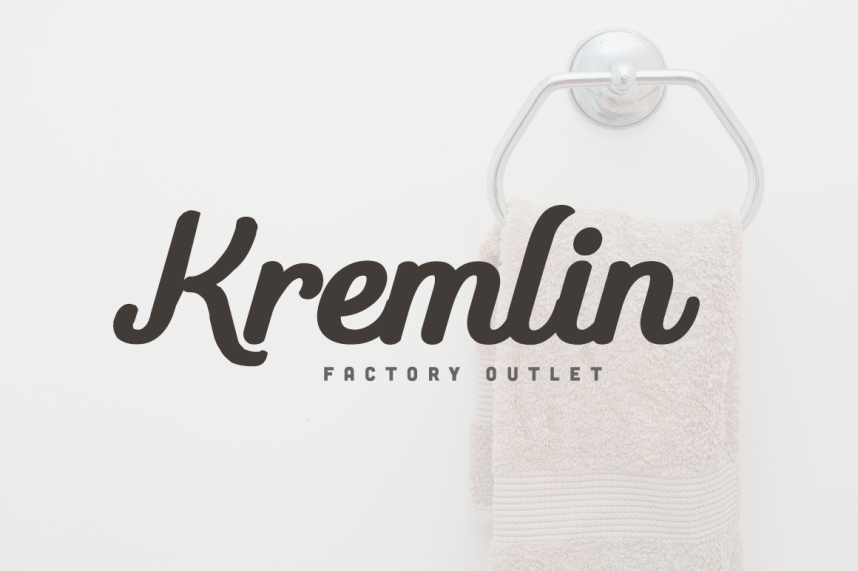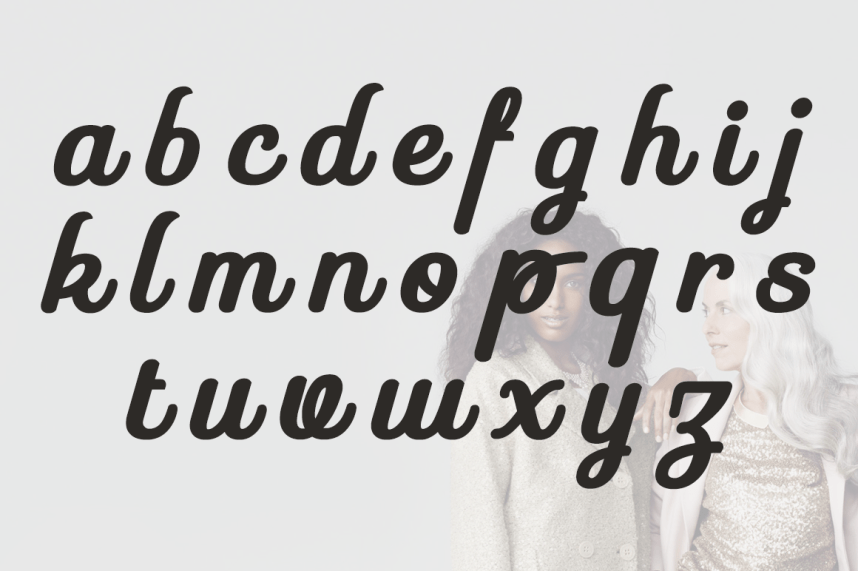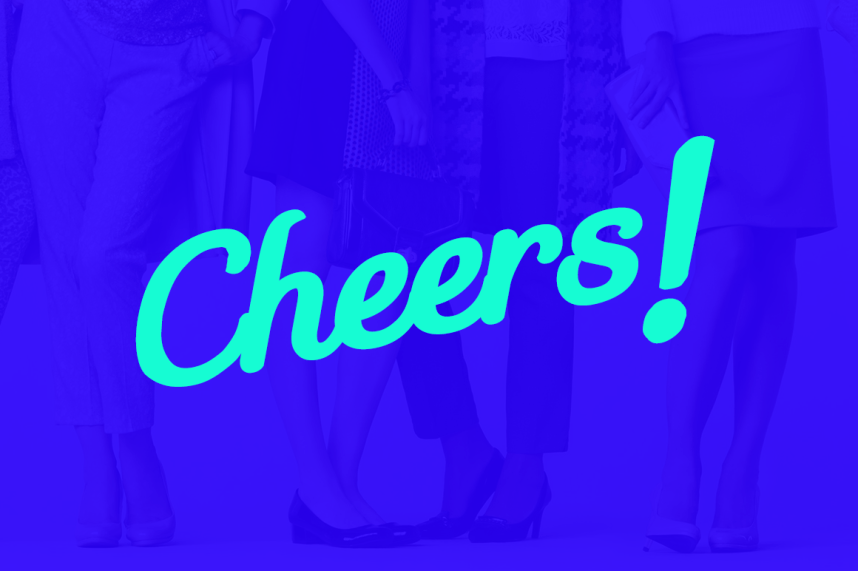
Rebli Script Font
Rebli This typeface calligraphy fonts comes with upper and lowercase characters and numerals. to your logo designs, brand imagery, handwritten quotes, product packaging, merchandise & social media posts.